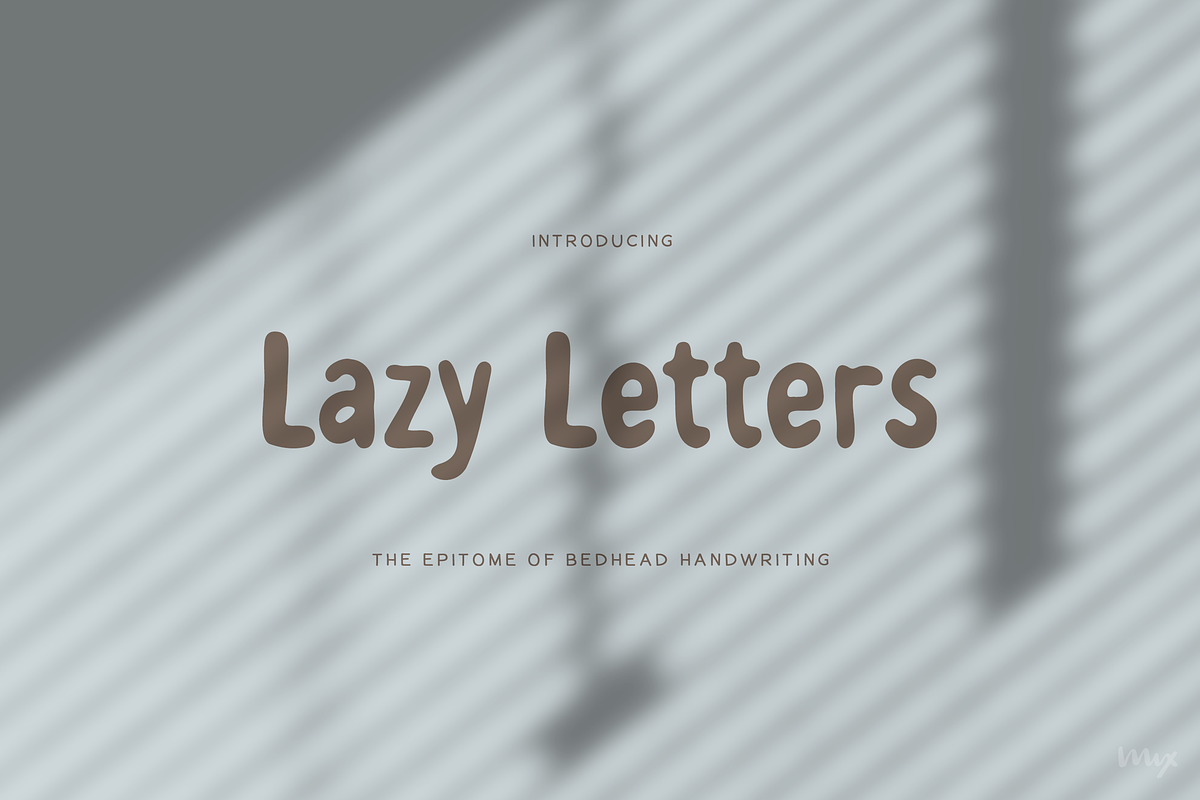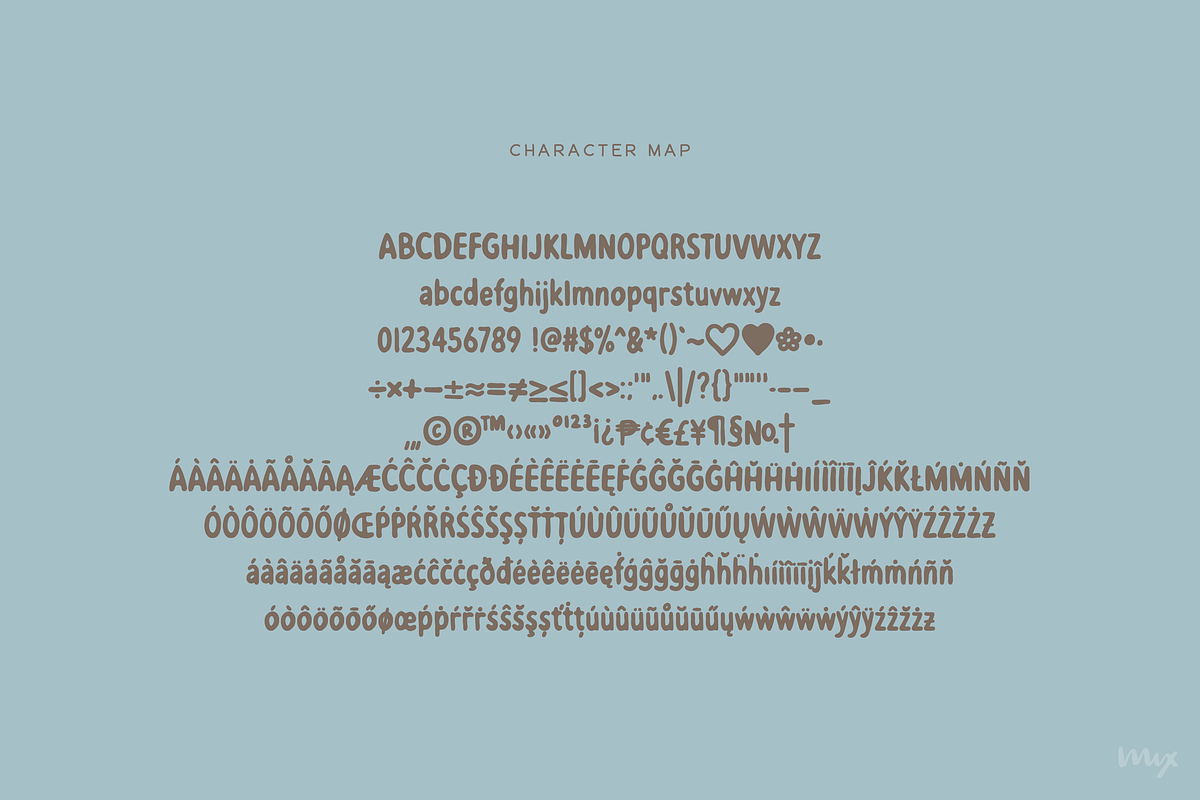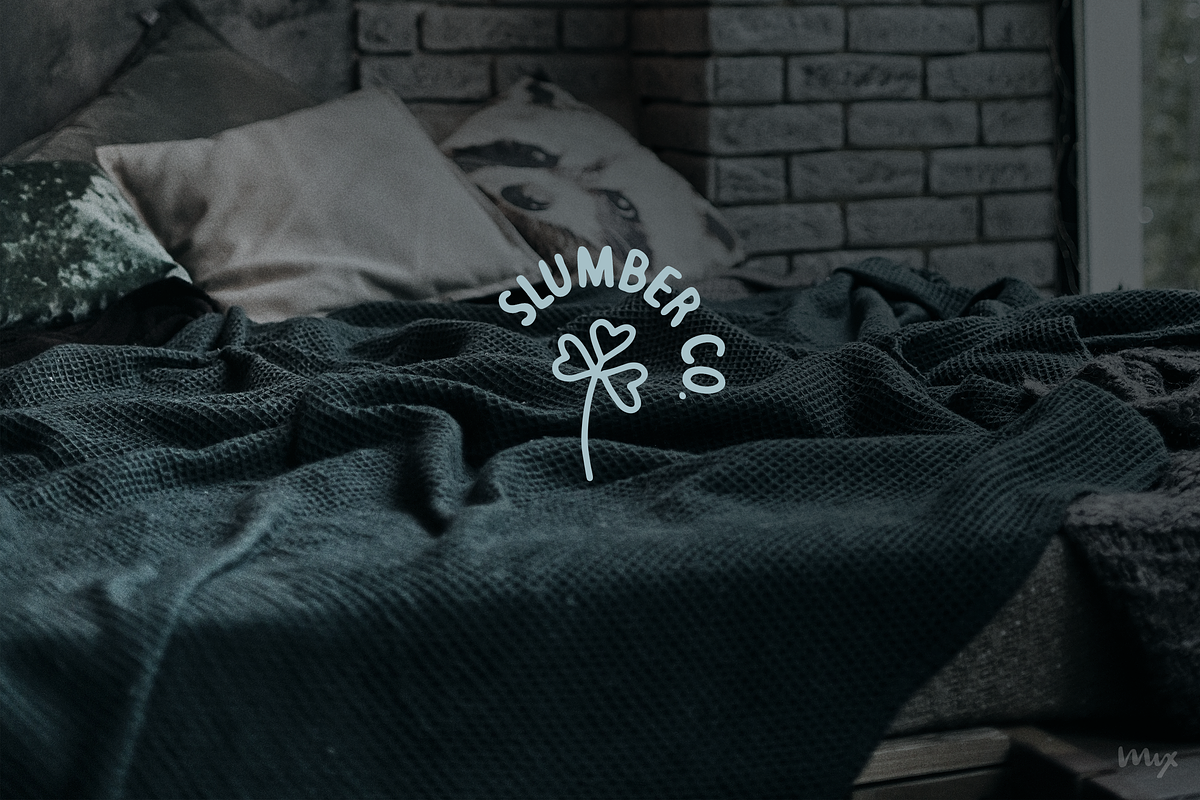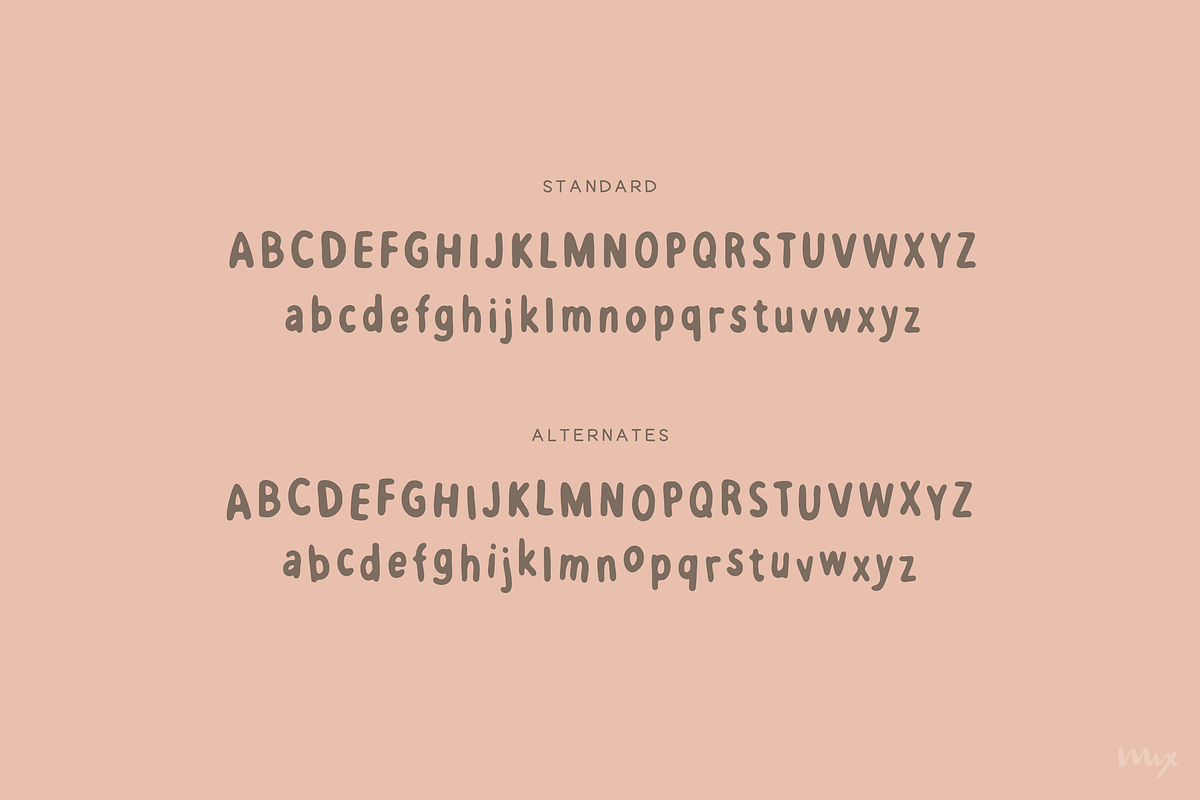
Lazy Letters — Bedhead Handwriting
Introducing MIX LAZY LETTERS – the handlettered font that’s perfect for capturing that “just rolled out of bed” vibe. This font is part of the Mix Fonts collection and boasts all the features you need for a touch of hand-lettered flair.
MIX LAZY LETTERS is versatile and has got you covered with multi-language support. But the real magic lies in the discretionary alternates – those uppercase and lowercase letters that are slightly askew, giving your designs a handstamped look. Use it for logos, digital journaling, or anything you want to imbue with a crafty touch.